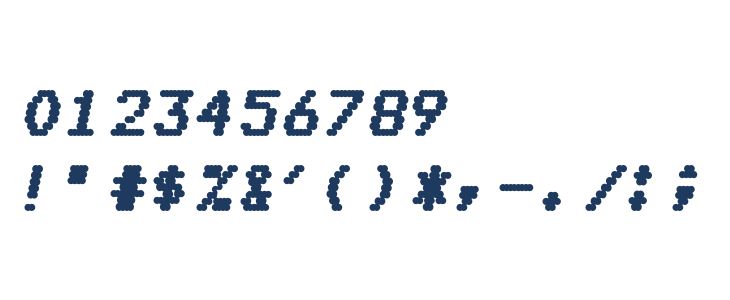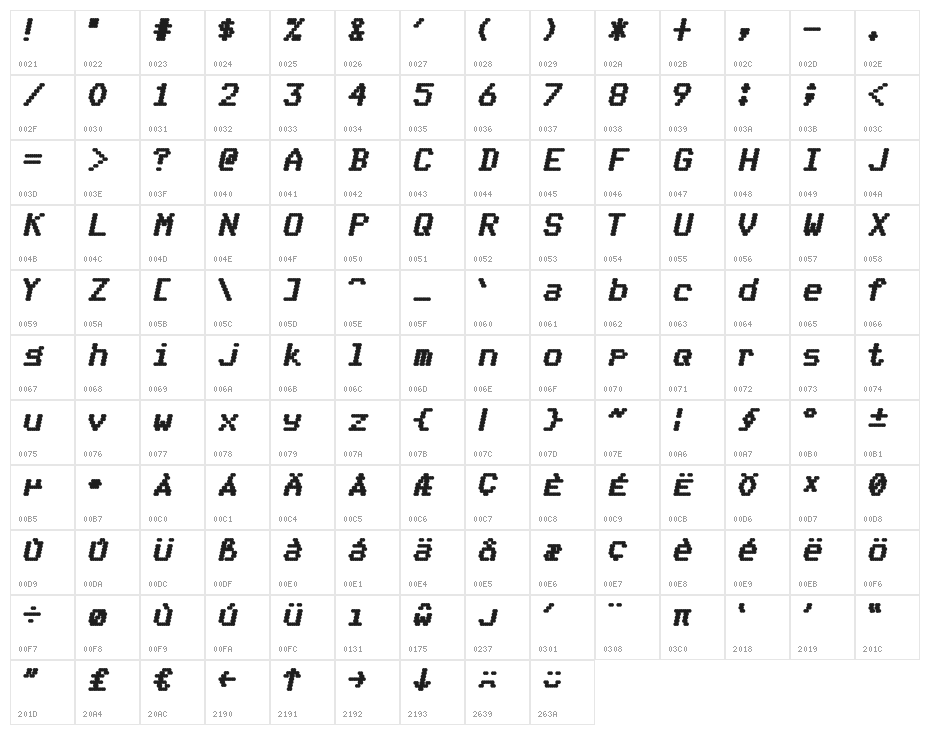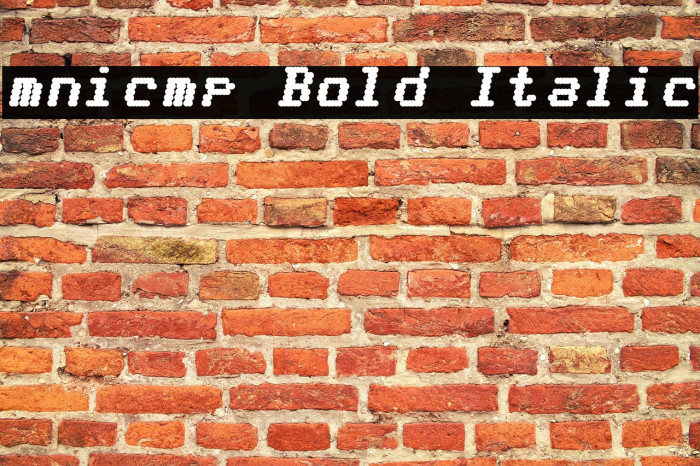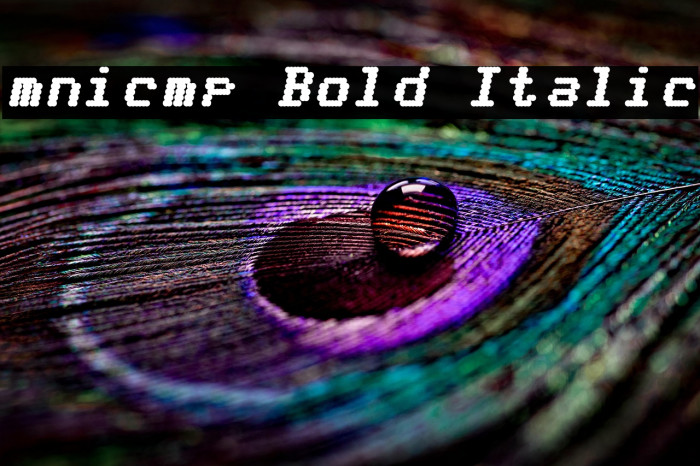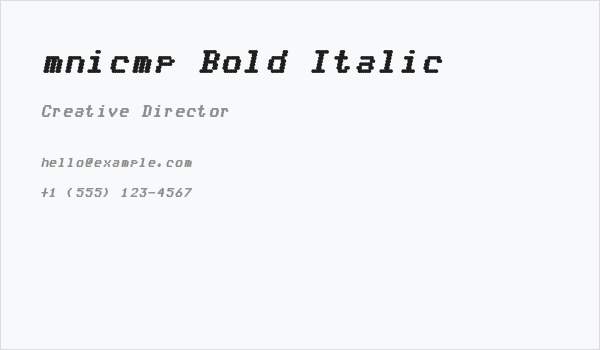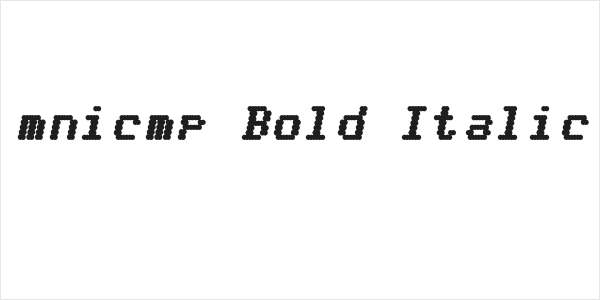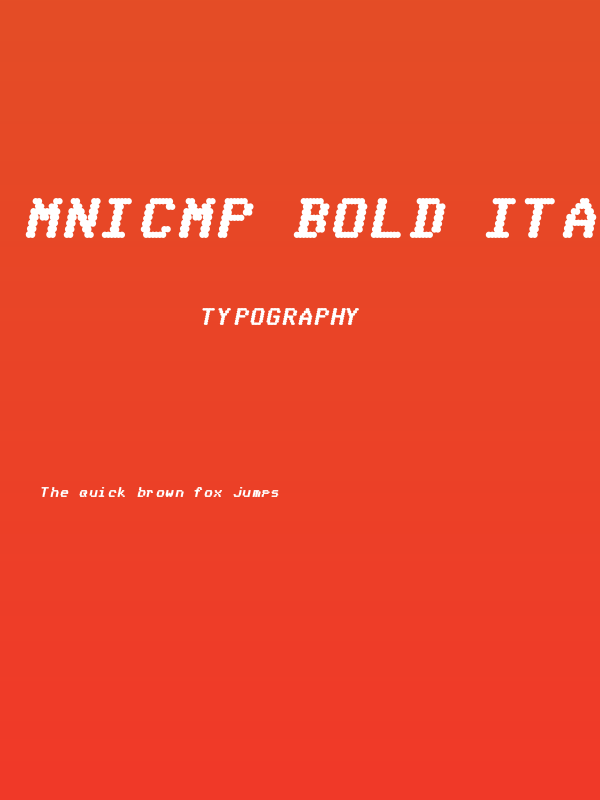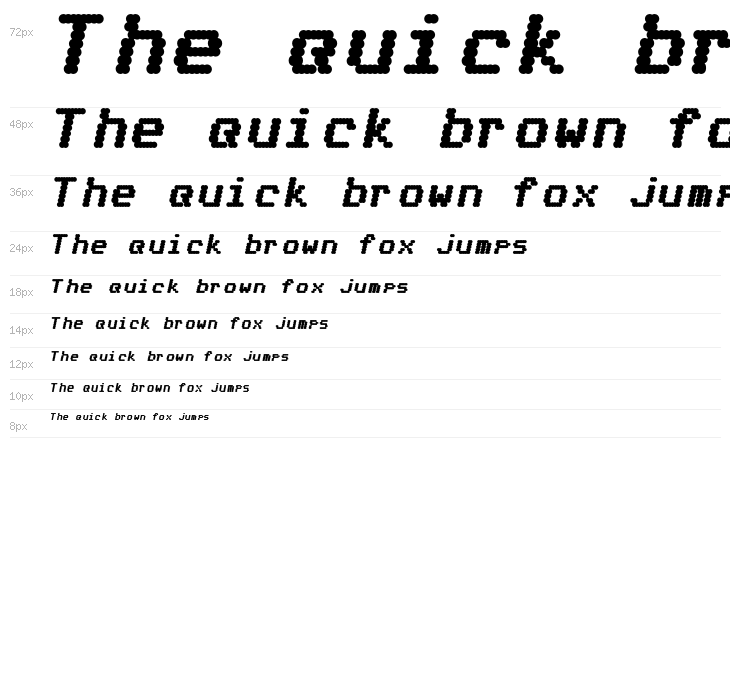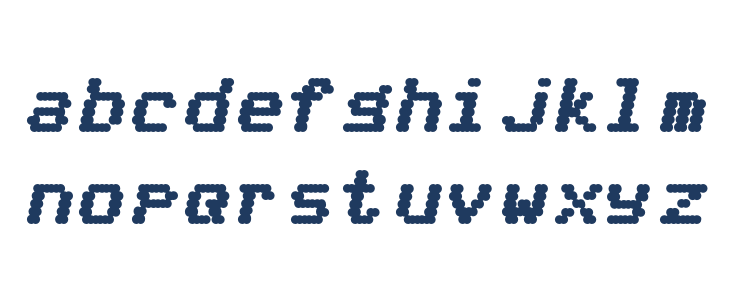
mnicmp Bold Italic Font
mnicmp Bold Italic Description
This font features a unique design where each character is composed of small, rounded dots, creating a textured and playful appearance. The letters are italicized, adding a sense of motion and dynamism. The bold weight of the font enhances its visibility and impact, making it suitable for attention-grabbing designs. The characters are evenly spaced, ensuring readability while maintaining the decorative style. The font includes a full set of uppercase and lowercase letters, numbers, and a variety of special characters, providing versatility for different design needs.
| Proposed Projects | Ideal for creative projects such as children's book covers, playful branding, event posters, and any design requiring a fun and engaging typeface. |